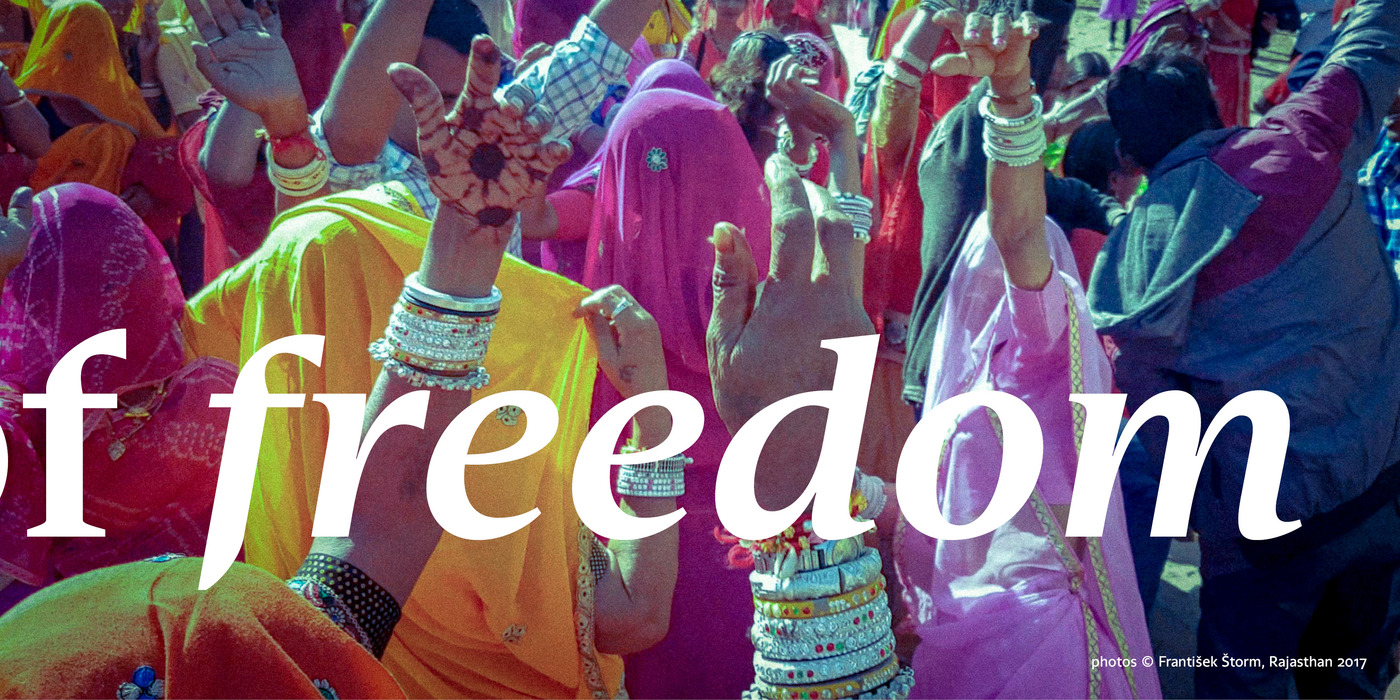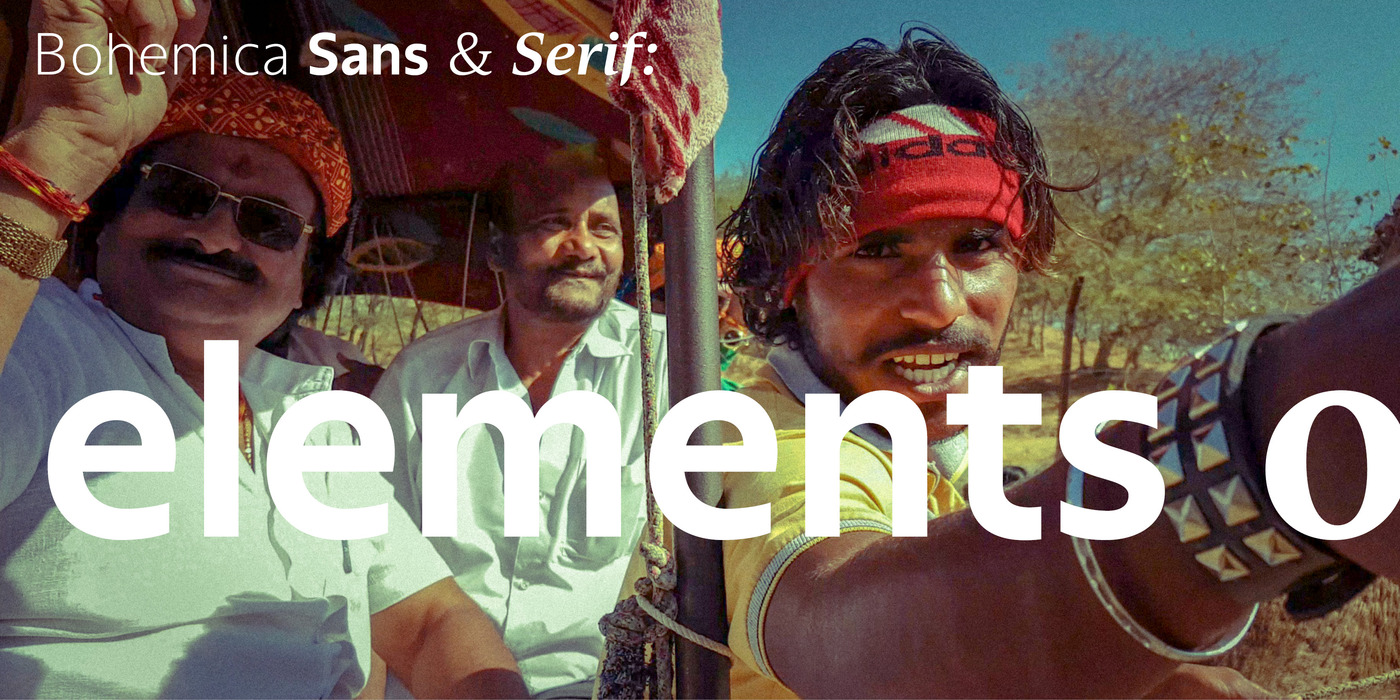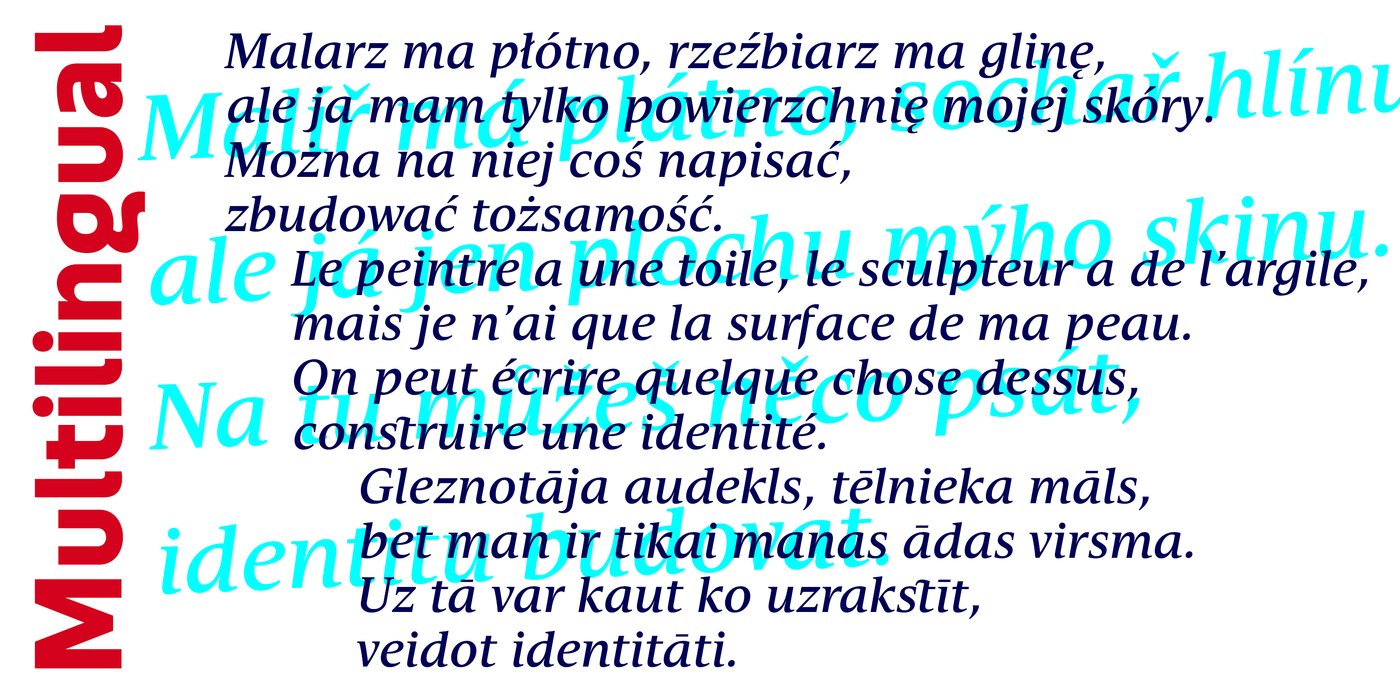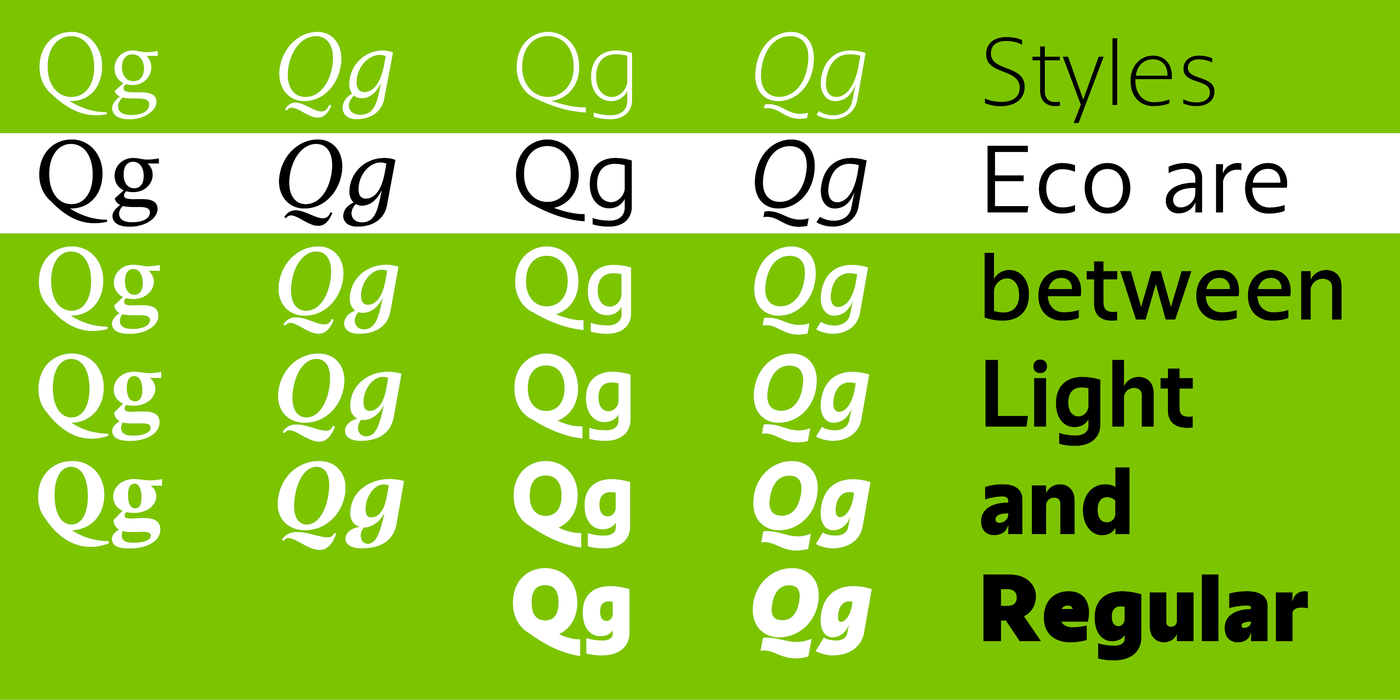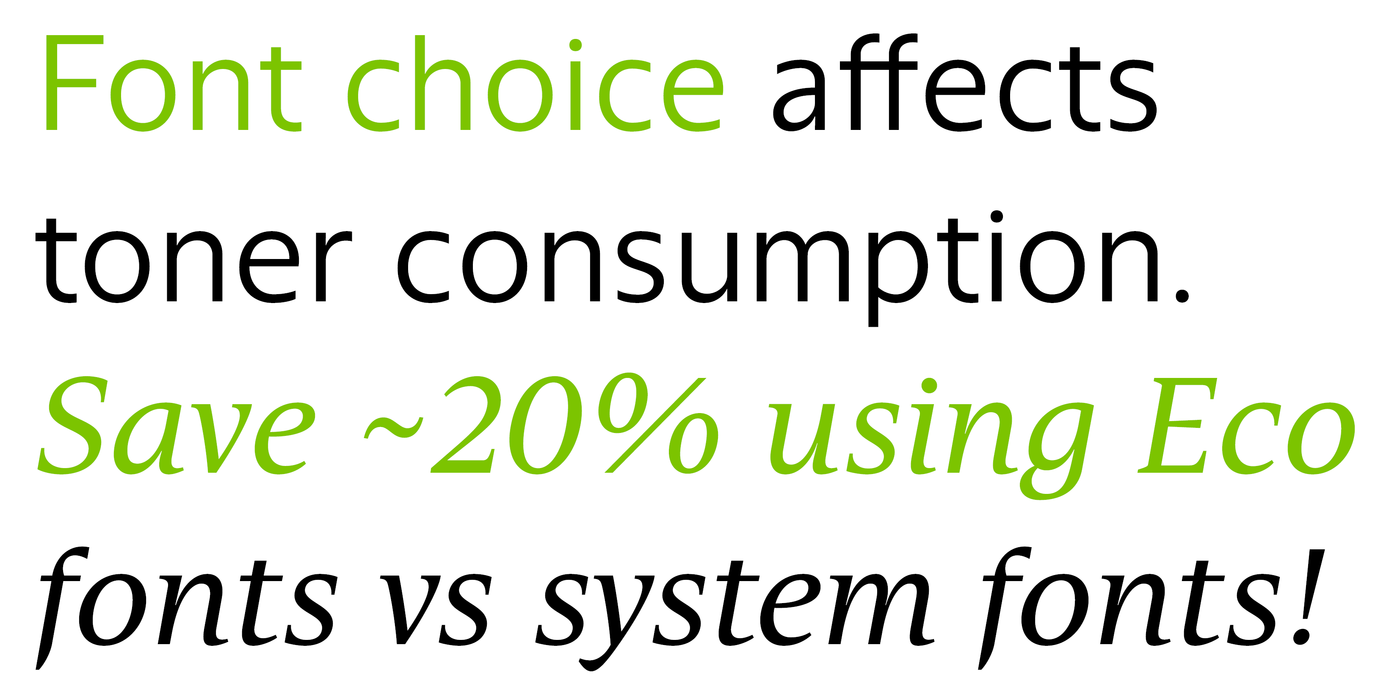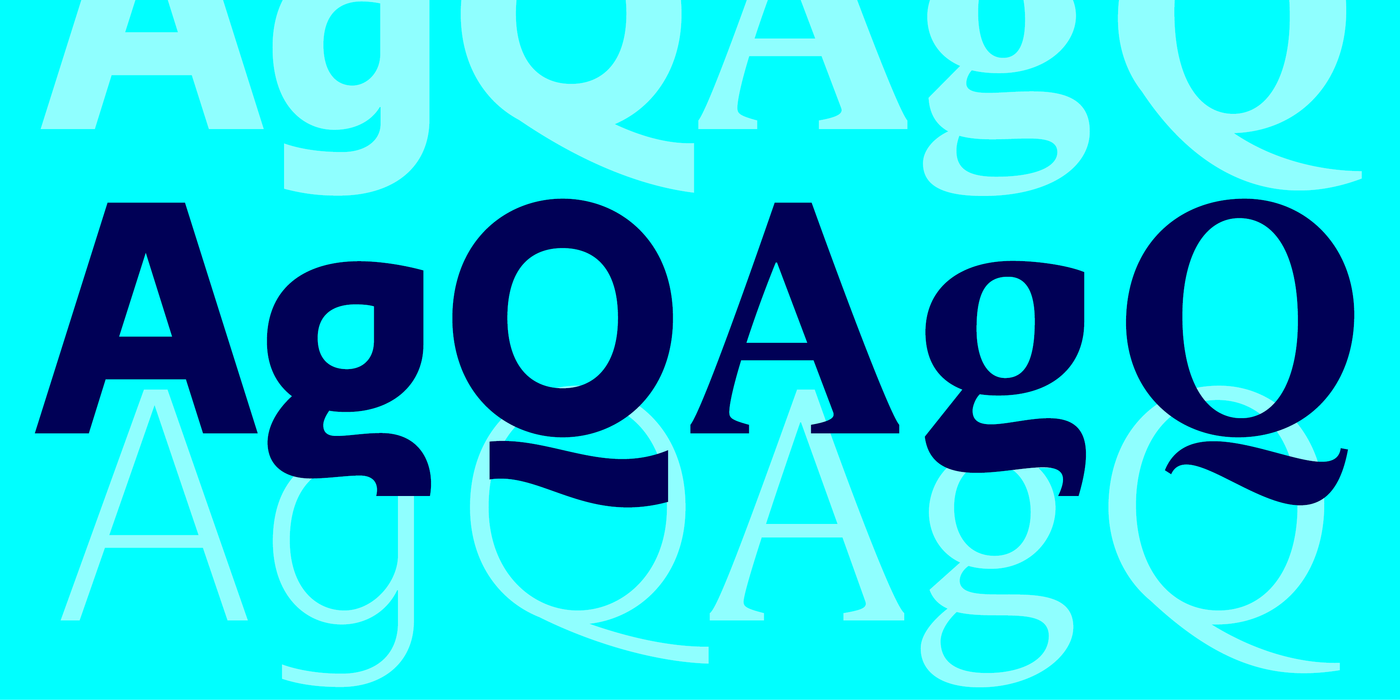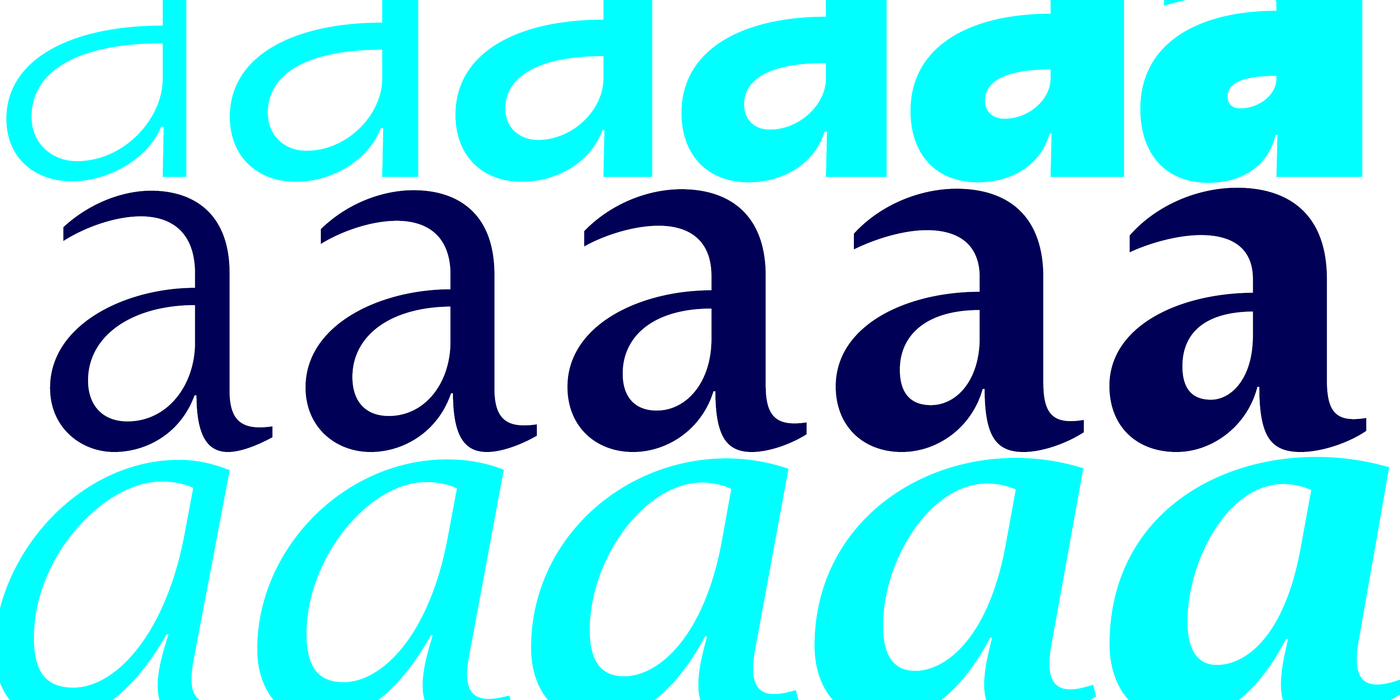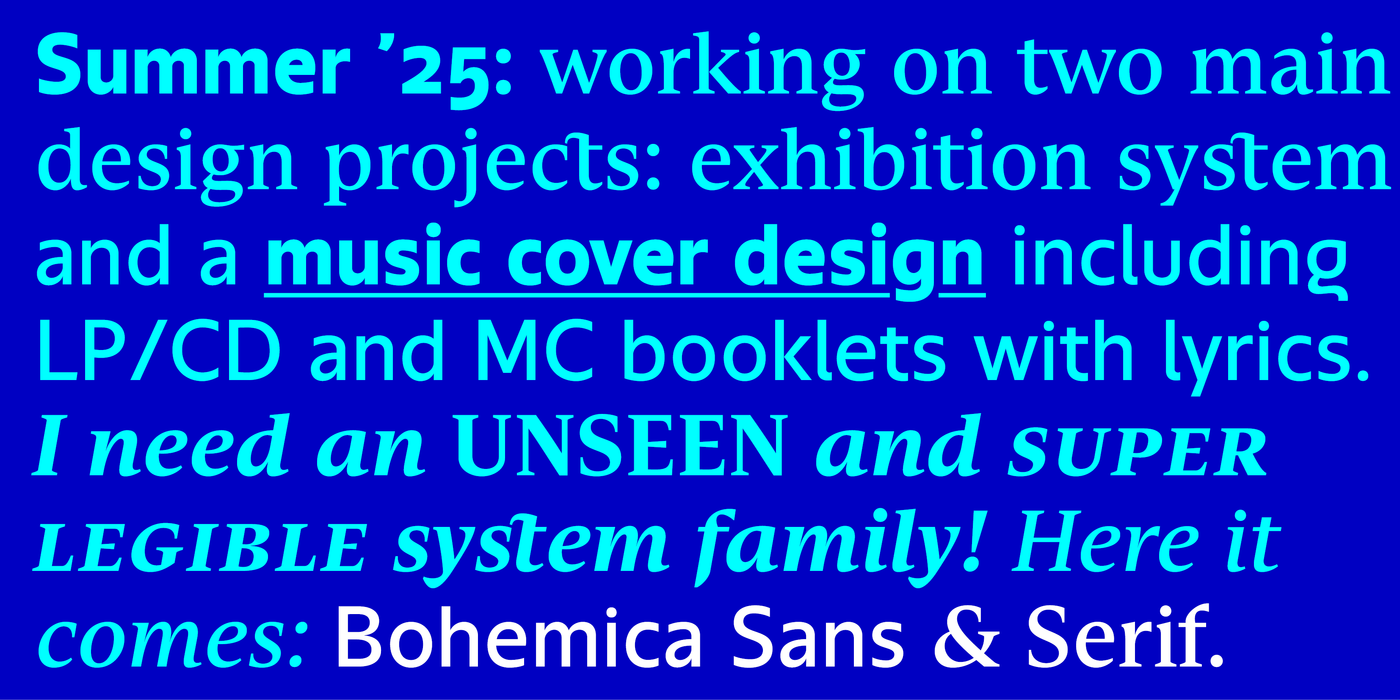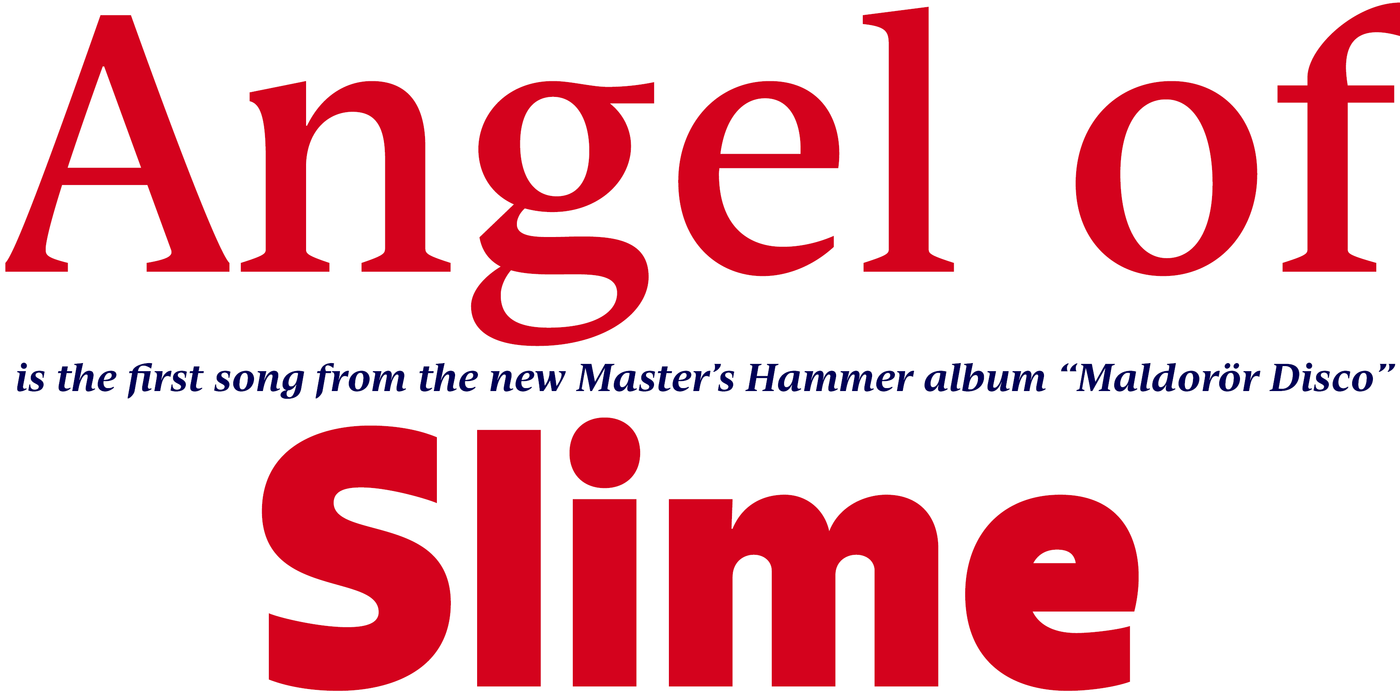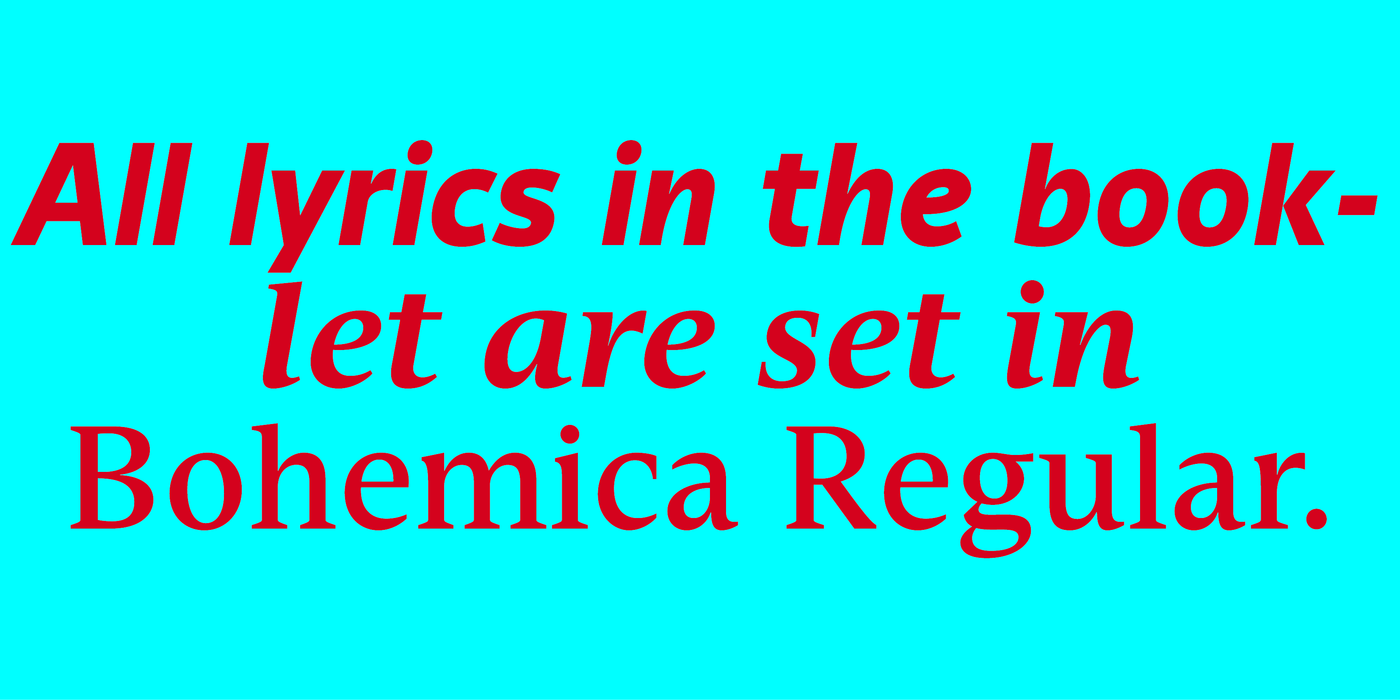
by František Štorm
Versatile typeface inspired by bohemian culture. The distinctive expressive treatment of the letter outlines meets an innovative technical design. The serif and sans-serif principles organically blend across the entire family. In total it contains 22 styles, 9 sorts of figures and usual OTF features such as small caps, ligatures and multilingual support. The bohemian lifestyle is common to all artists and writers. But beneath the jovial expression lies the rigid order of ancient tribal customs. The rhythm of work with an emphasis on communicating good design is inseparable from artistic expression. Real artists cultivate strict order – just like typographers. The eponymous font is suitable not only for art magazines, exhibition catalogues, newspapers and advertisements, but also for visual identity solutions. Všestranné písmo inspirované bohémskou kulturou. Charakteristické expresivní zpracování obrysů písmen se setkává s inovativním technickým designem. Principy patkového a bezpatkového písma se organicky prolínají napříč celou rodinou. Celkem obsahuje 22 stylů, 9 druhů číslic a obvyklé funkce OTF, jako jsou malé kapitálky, ligatury a vícejazyčná podpora. Bohémský životní styl je společný všem umělcům a spisovatelům. Avšak pod žoviálnám výrazem se skrývá pevný řád dávných kmenových zvyků. Rytmus práce s důrazem na sdělování dobrého designu je neoddělitelný od uměleckého vyjádření. Skuteční umělci dodržují přísný řád – stejně jako typografové. Stejnojmenné písmo je vhodné nejen pro umělecké časopisy, katalogy výstav, noviny a reklamy, ale také pro systémy vizuální identity.